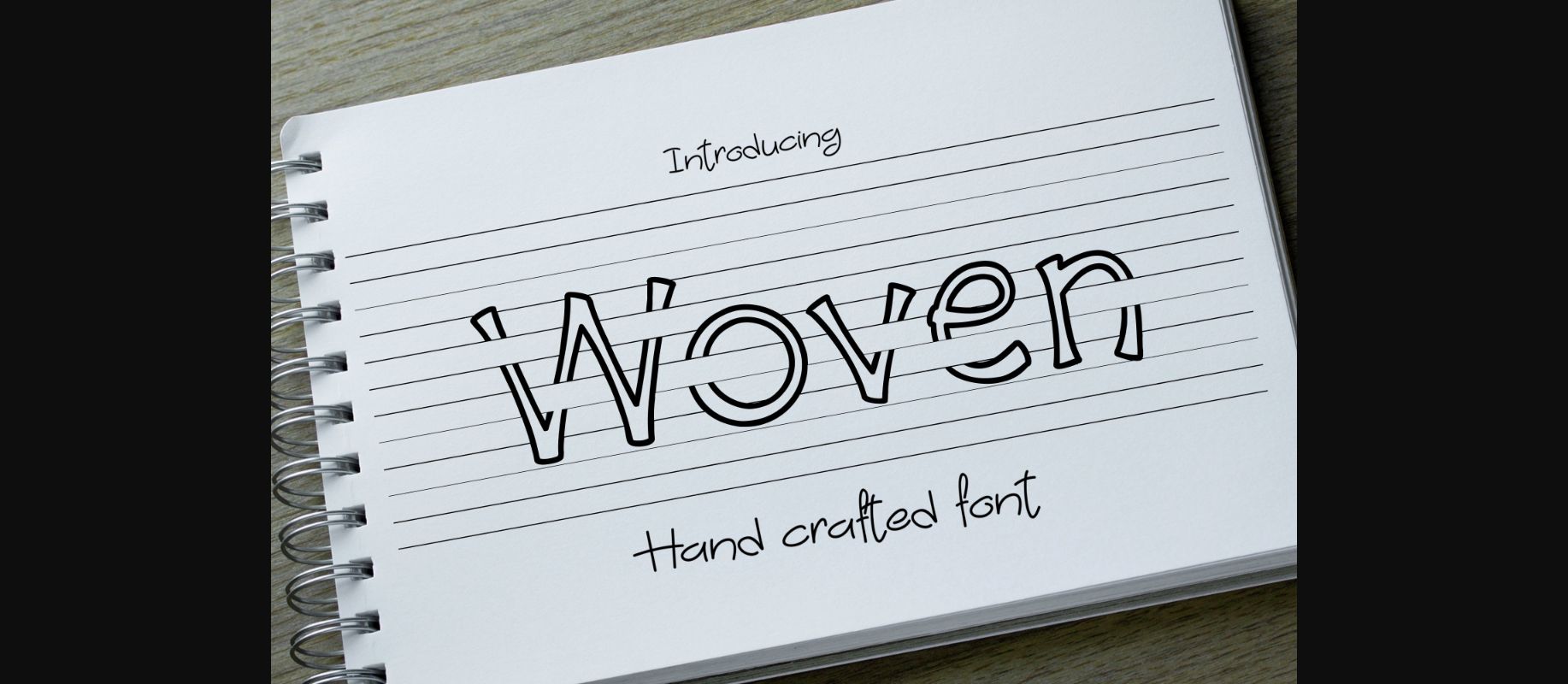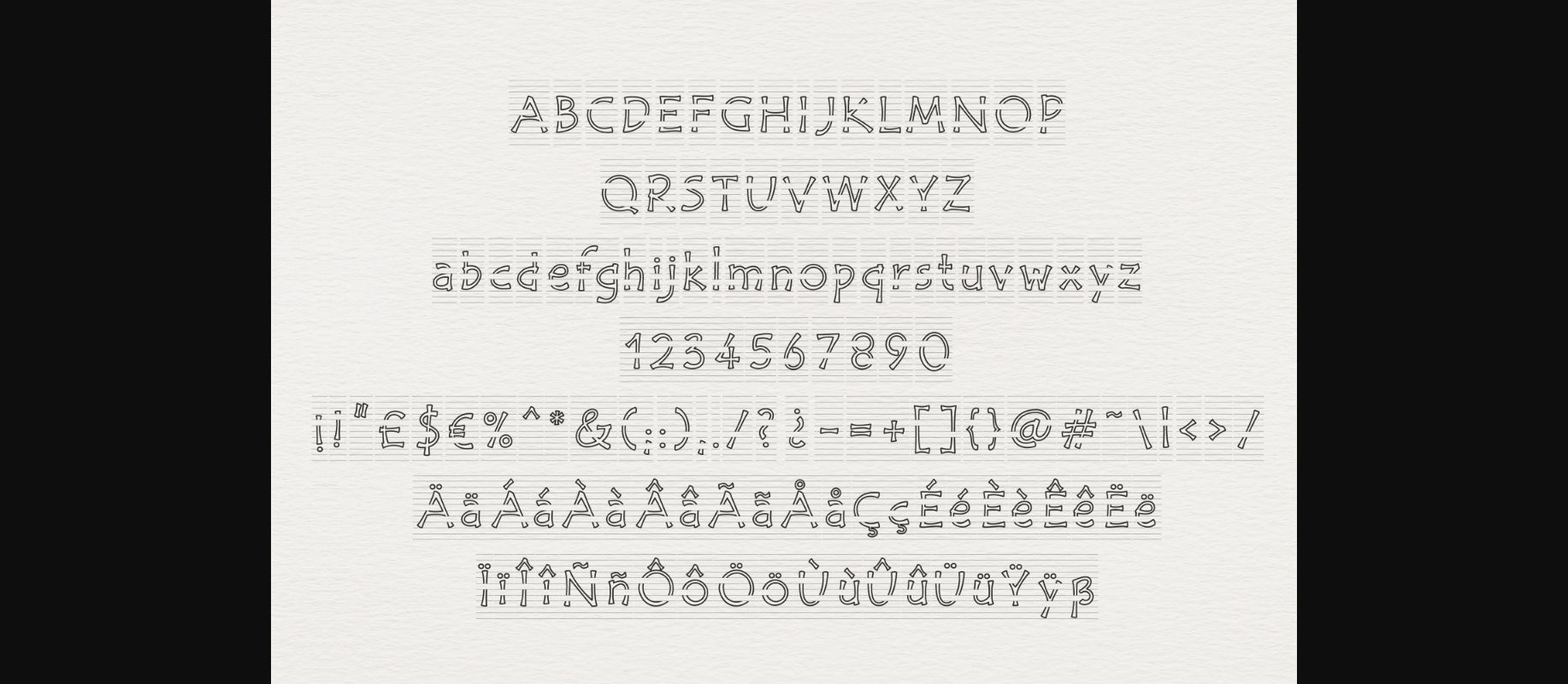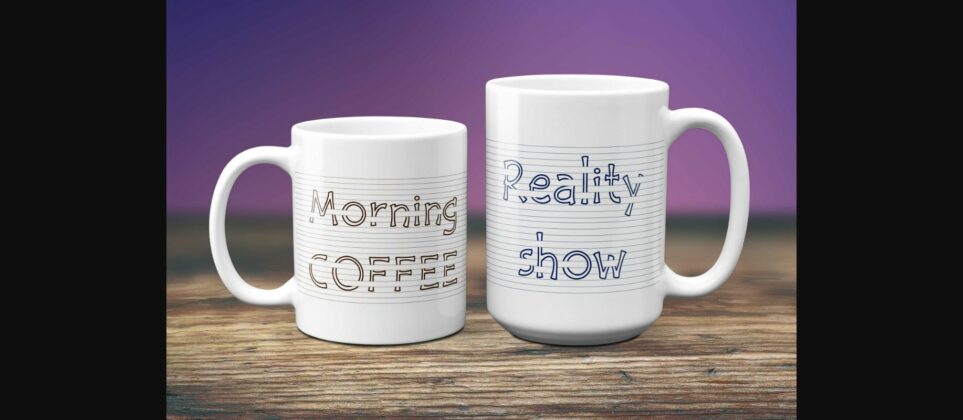
About Woven Font
Woven is a fun and distinct decorative font with these 3-dimensional letters that seem to be going around, under, and over notebook paper.
Woven will give your design an authentic feel and unique look!
Use it to create gorgeous stationary art, eye-catching social media posts, and cute greeting cards.
Woven will give your design an authentic feel and unique look!
Use it to create gorgeous stationary art, eye-catching social media posts, and cute greeting cards.